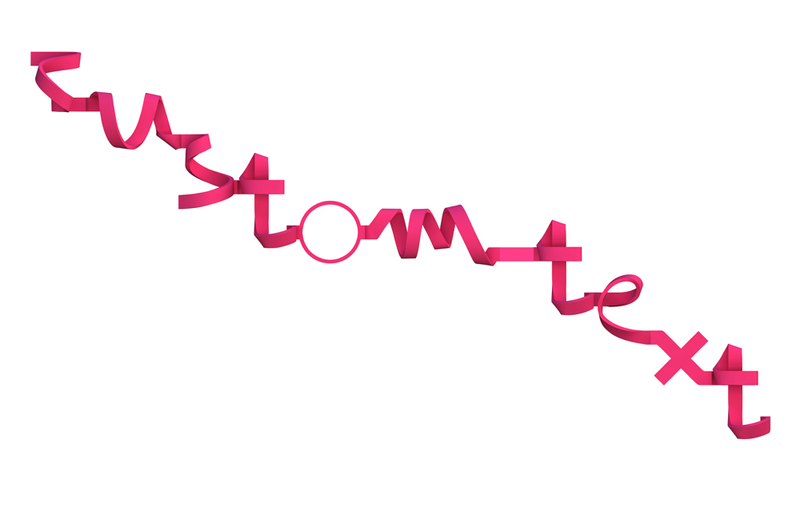
All you need to do is type in the chosen text at Freedom of Creation’s website, and they’ll use a 3D printer to create your very own custom font—for your desk, front door, or even above the bed.
So one-night stands don’t forget your name, obviously. It’s available in both Arabic and Latin text, and were created by Yara Khoury and Melle Hammer to resemble a ribbon twirling the individual letters out.